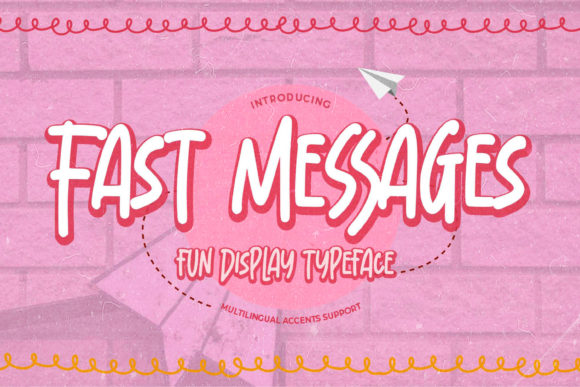
Fast Messages: A Fun Font for Happy Designs
Fast Messages is a unique and fun display font that brings a sense of joy and energy to any project. Its playful style makes it ideal for informal designs, happy moment decorations, and creative expressions that require a cheerful vibe. Whether you're working on a personal project or a professional design, Fast Messages can add a fresh and lively touch that stands out.
For designers, marketers, and creators, fonts are more than just text—they’re tools that shape the tone and impact of visual communication. Fast Messages offers a distinct personality that can enhance the mood of your work without overwhelming it. It’s especially useful when you want to convey positivity, excitement, or a lighthearted approach.
Why Fast Messages Matters
Fonts play a crucial role in how messages are perceived. A well-chosen typeface can make content more engaging, memorable, and emotionally resonant. Fast Messages is designed with this in mind, offering a casual yet polished look that works across various mediums. From social media posts to event invitations, this font adds a friendly and approachable feel that connects with audiences on a personal level.
Consider a small business owner creating promotional materials for a new product launch. Using Fast Messages can help create a warm and inviting atmosphere that encourages customer interaction. Similarly, a blogger looking to add personality to a blog post might use this font to highlight key points or emphasize a positive message.
Practical Benefits of Fast Messages
One of the main advantages of Fast Messages is its versatility. It works well in both digital and print formats, making it a valuable addition to any designer’s toolkit. Whether you're designing a poster, a logo, or a website header, this font can bring a sense of movement and energy that other more traditional fonts might lack.
Another benefit is its ease of use. Unlike some complex or ornate fonts, Fast Messages maintains clarity and readability even at smaller sizes. This makes it suitable for a wide range of applications, from short phrases and headlines to longer text blocks. It’s also compatible with most design software, ensuring that you can integrate it smoothly into your workflow.
Who Can Benefit Most from Fast Messages
Fast Messages is particularly useful for individuals and businesses that prioritize creativity and emotional expression in their work. Entrepreneurs launching a brand or product may find it helpful in creating a strong visual identity that reflects their values and personality. Educators and content creators can use it to make learning materials more engaging and visually appealing.
Freelancers and independent designers often look for fonts that offer both aesthetic appeal and functionality. Fast Messages provides a balance between style and usability, making it a great choice for those who want to stand out without sacrificing professionalism. For hobbyists and DIY enthusiasts, it adds an extra layer of fun and personalization to their projects.
Real-World Applications
Imagine a wedding planner designing invitations for a summer-themed event. By incorporating Fast Messages into the layout, they can create a vibrant and joyful design that matches the tone of the occasion. The font’s energetic appearance complements the celebration’s atmosphere, making the invitations more eye-catching and memorable.
Another example is a marketing team working on a campaign for a children's toy. Using Fast Messages in the promotional materials can help convey a sense of fun and excitement that appeals to both kids and parents. It adds a playful element that aligns with the product’s target audience and enhances the overall message.
Limitations and Considerations
While Fast Messages is a great choice for many projects, it may not be suitable for all types of design work. In formal or professional settings, such as corporate reports or legal documents, a more traditional font might be more appropriate. The font’s casual style could be seen as too informal in these contexts.
It’s also important to consider the overall design composition when using Fast Messages. Since it has a distinctive look, it should be used thoughtfully to avoid clashing with other elements. Pairing it with simpler fonts or neutral colors can help maintain balance and ensure that the message remains clear and effective.
How to Get Started with Fast Messages
Before applying it to a final project, take time to test it in various contexts. Try using it in different sizes, colors, and backgrounds to see how it performs. This will help you understand its strengths and limitations, ensuring that you use it effectively in your work.
Conclusion
Fast Messages is more than just a font—it’s a tool that can elevate your designs and bring a sense of joy to your work. Its unique style and practical benefits make it a valuable asset for anyone looking to add personality and energy to their visual creations. Whether you're a designer, marketer, educator, or hobbyist, this font offers a fresh and fun way to express your ideas and connect with your audience.